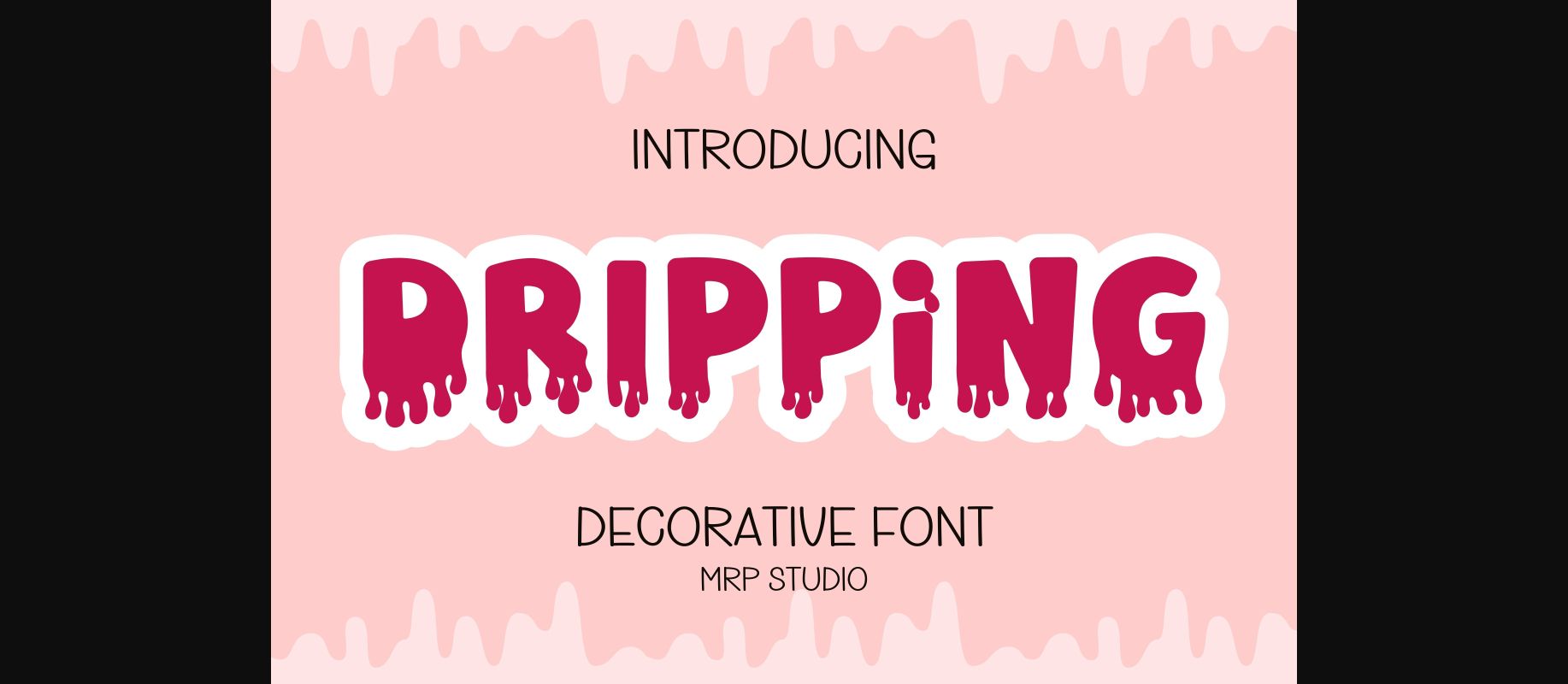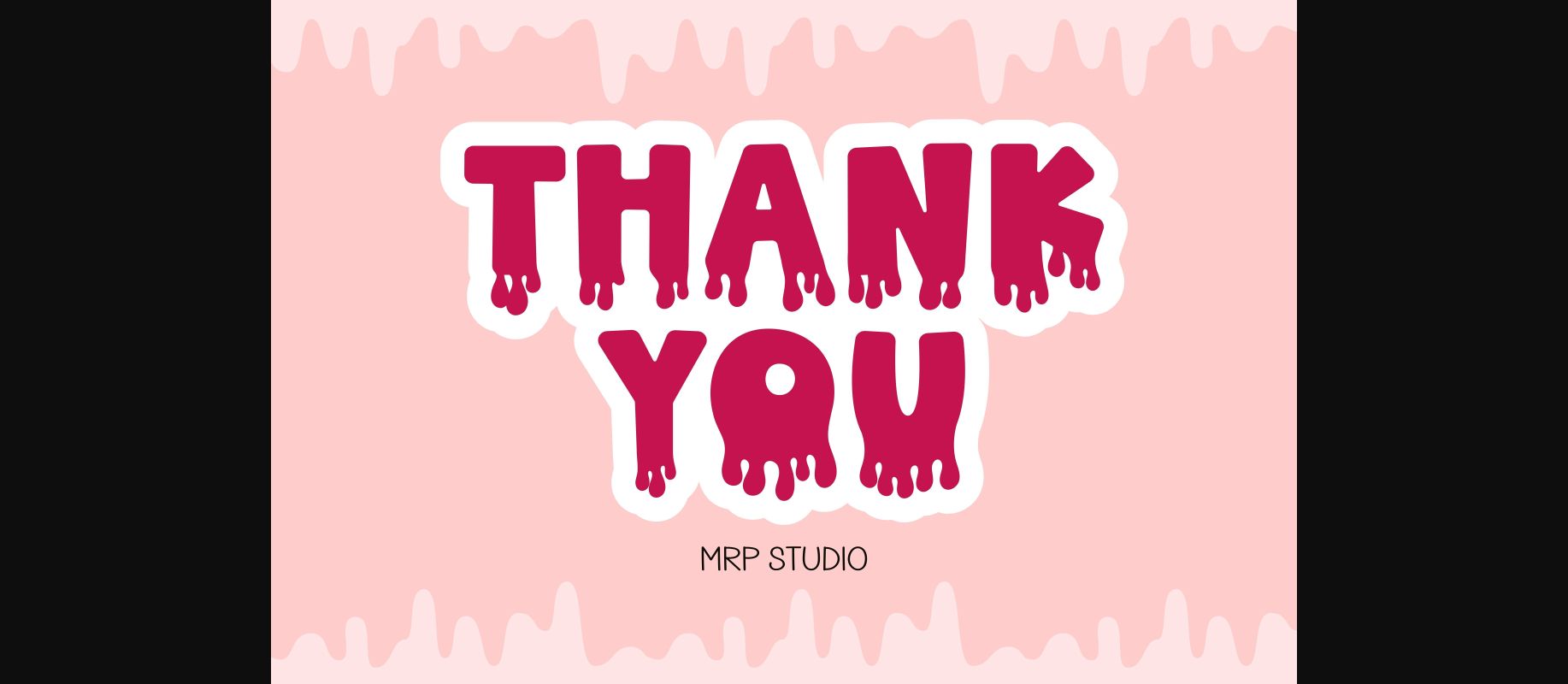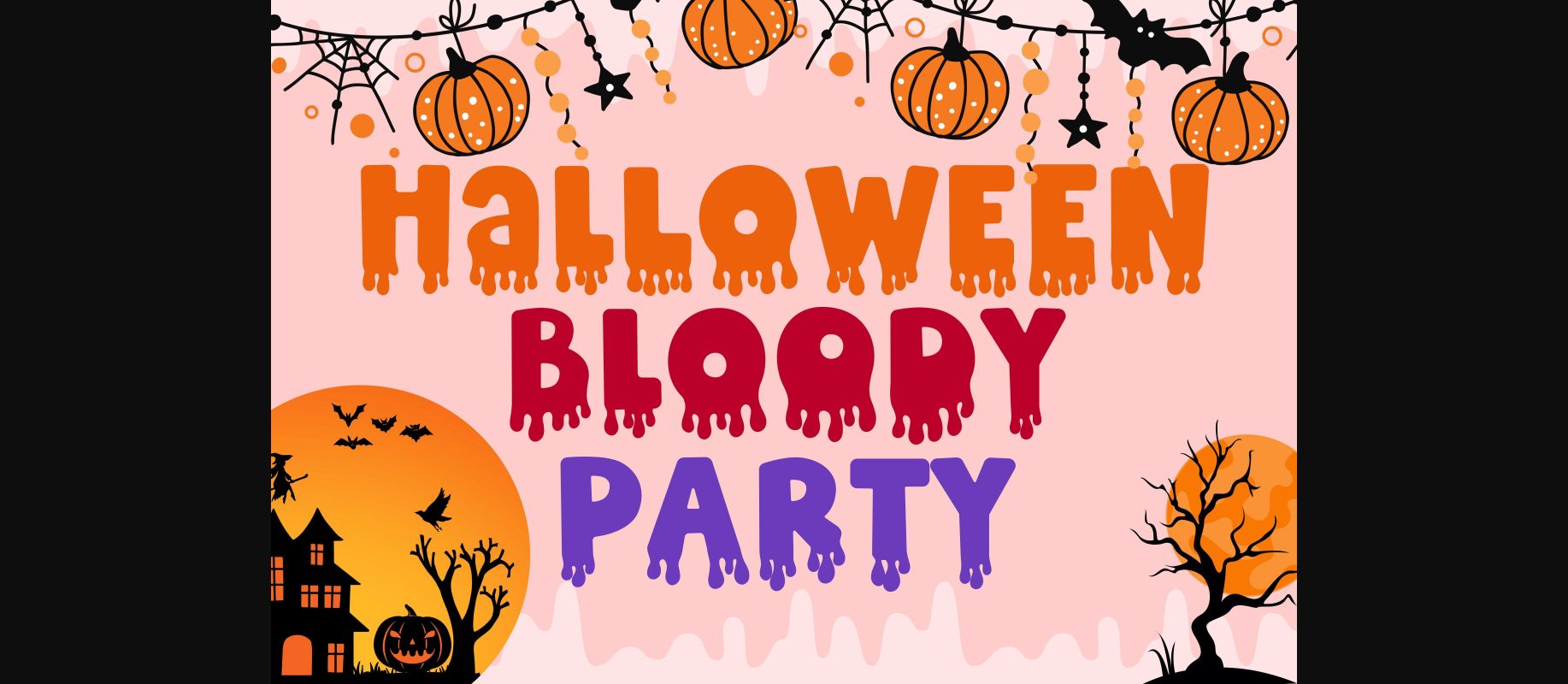
About Dripping Font
Dripping is designed in a spooky and adorable decorative font style. It would be awesome to your lovely projects and also your child-related project such as back to school, Halloween party decorations and much more that need a bright and fun touch. Try it and add it to your creative ideas and notice how it makes them stand out!